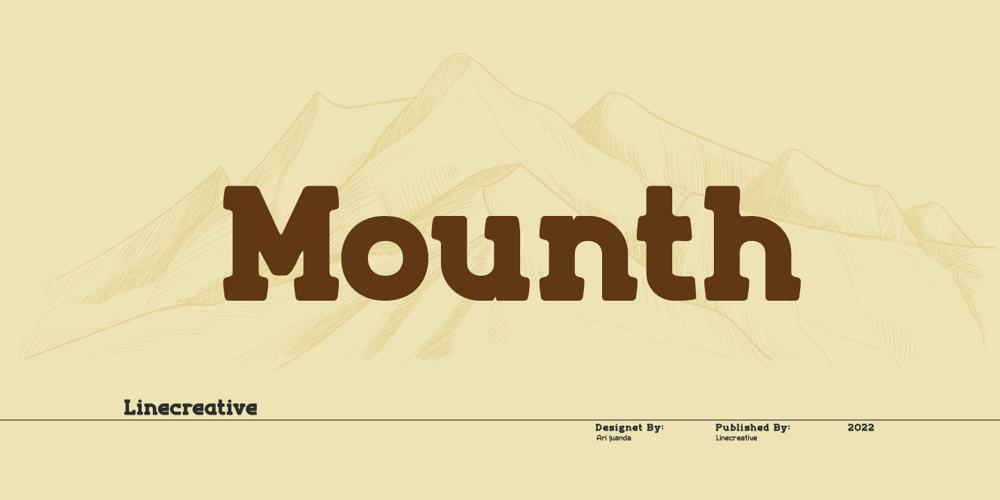
Mounth
Mounth font
Mounth Font Family was designed by Ari Juanda and published by Linecreative. Mounth contains 1 styles and family package options. Mount is Modern Slab Serif FontMount is a bold slab-serif font for titling, captions and logo. this font is similar to Simple Note font, but it comes in round and rough shapes.Mount offers you:1. Upper and Lowercase characters2. Multilingual Support (Latin Western Europe) 3. Numbers and Punctuation